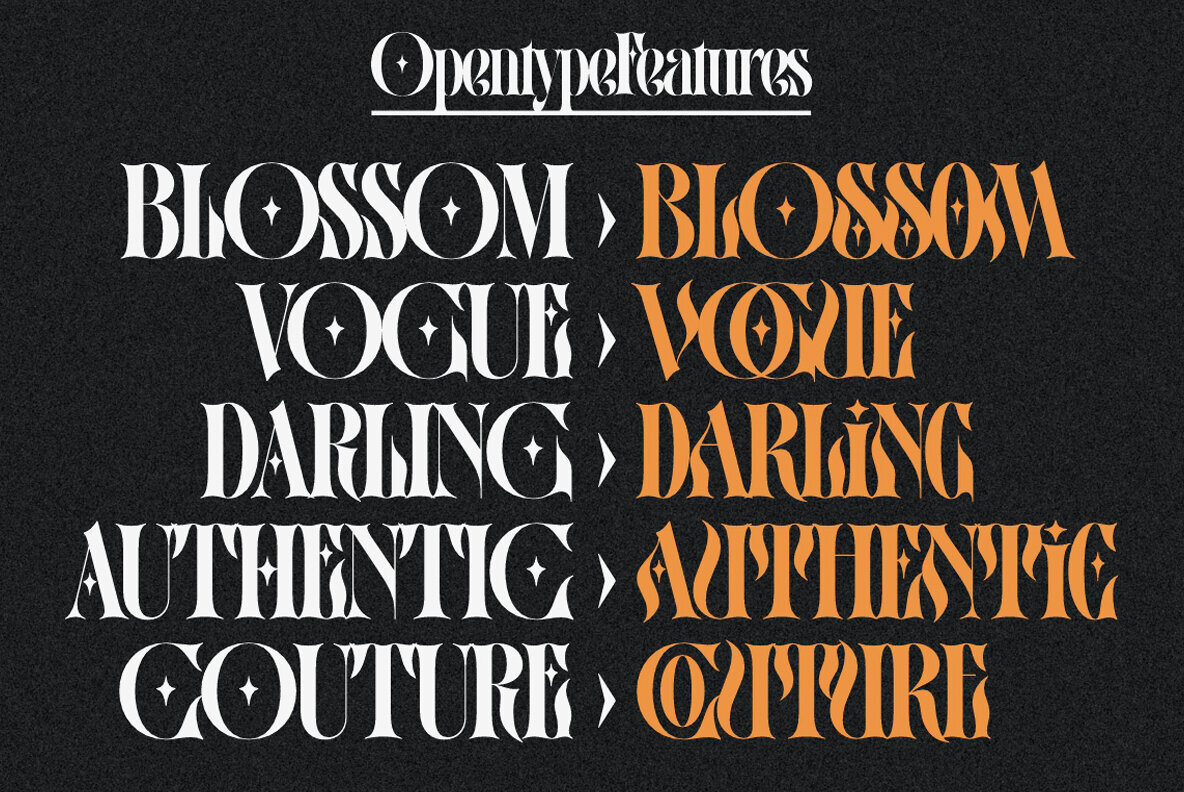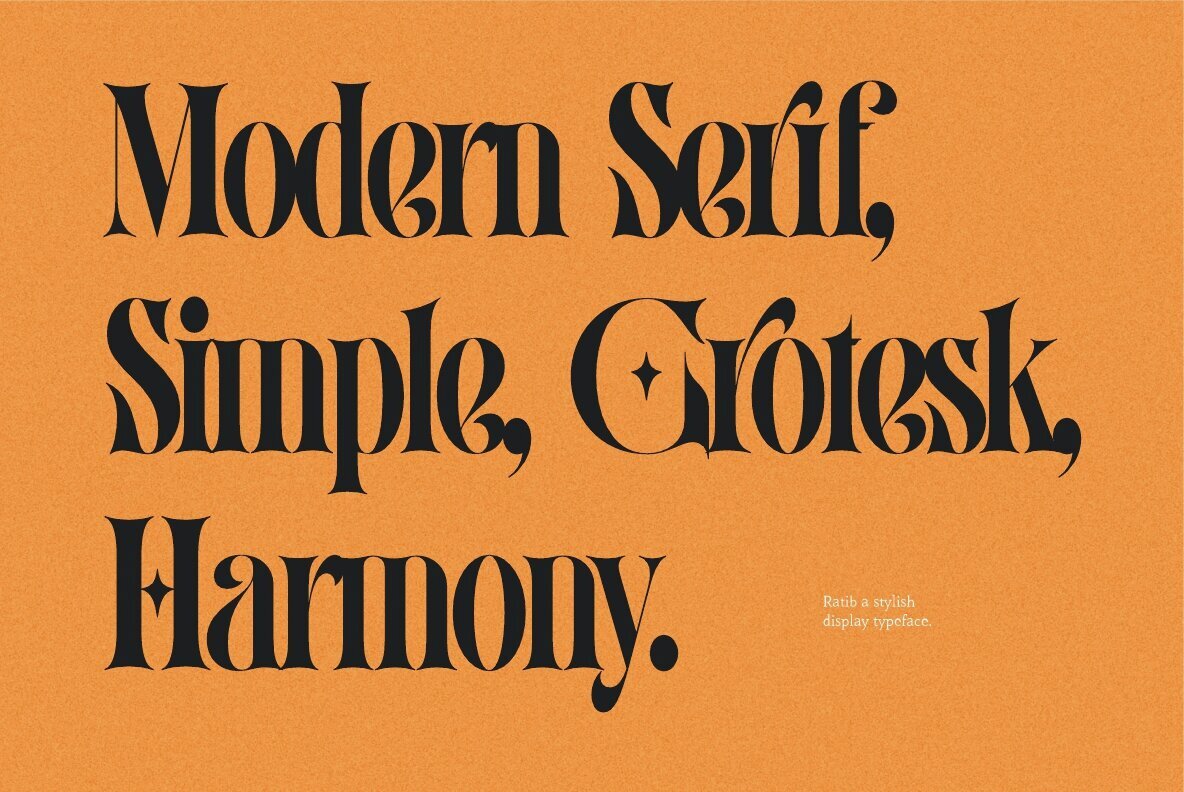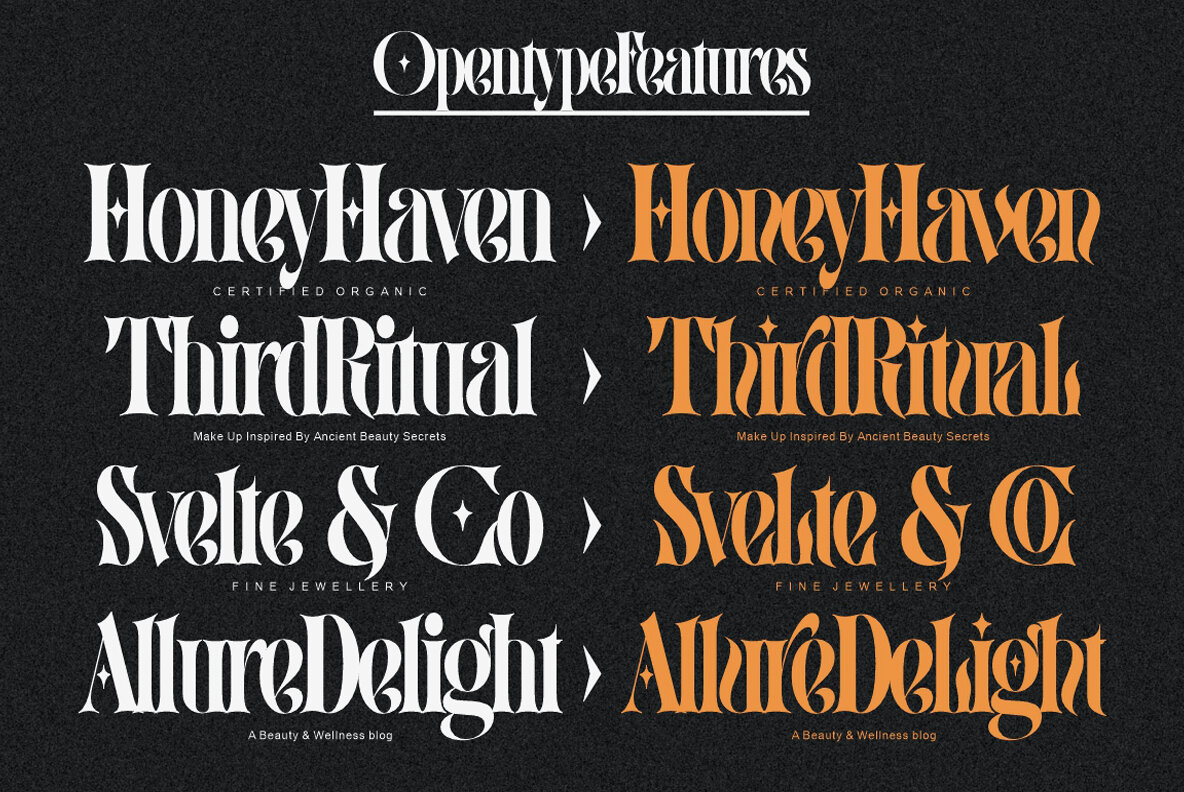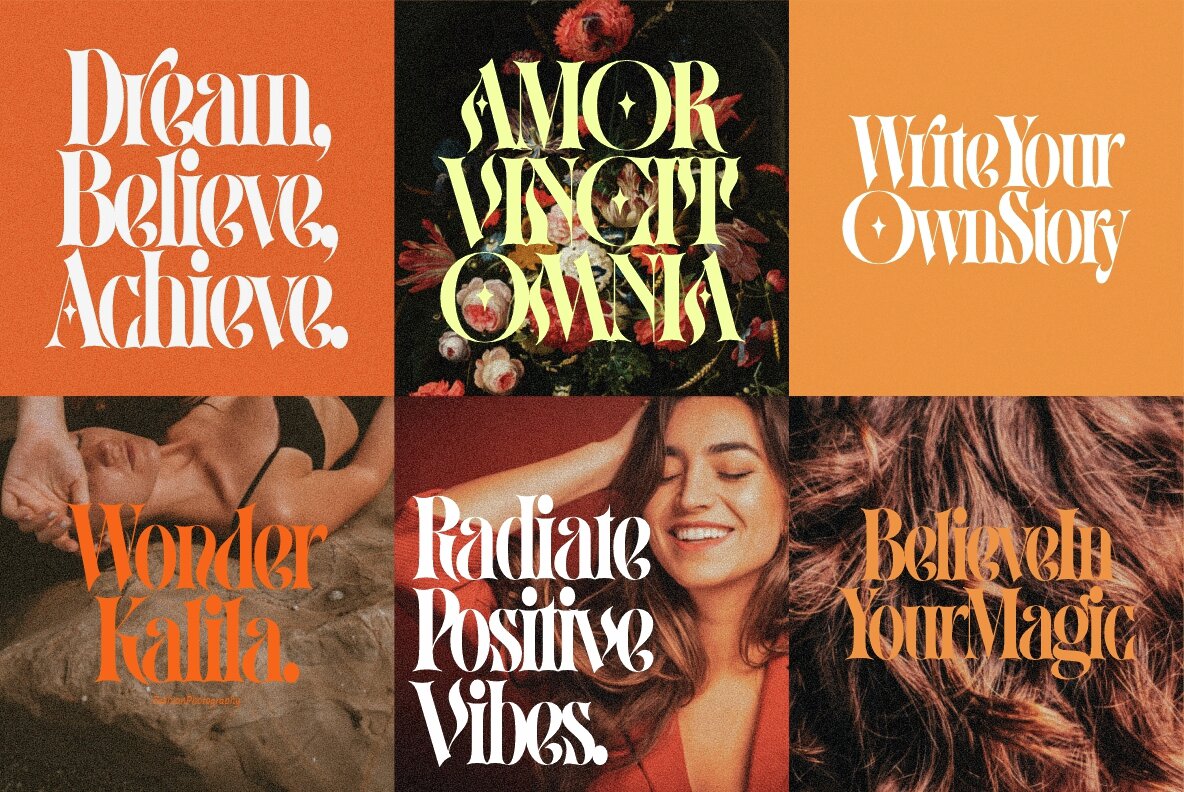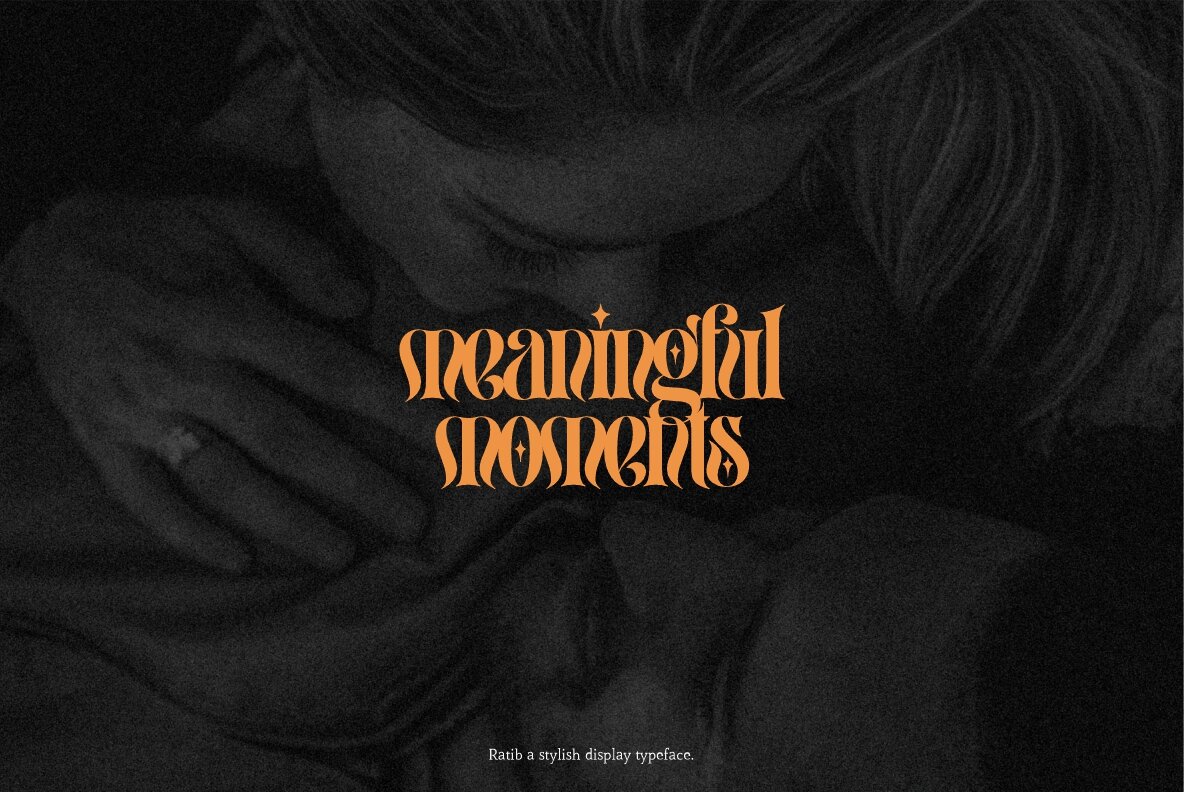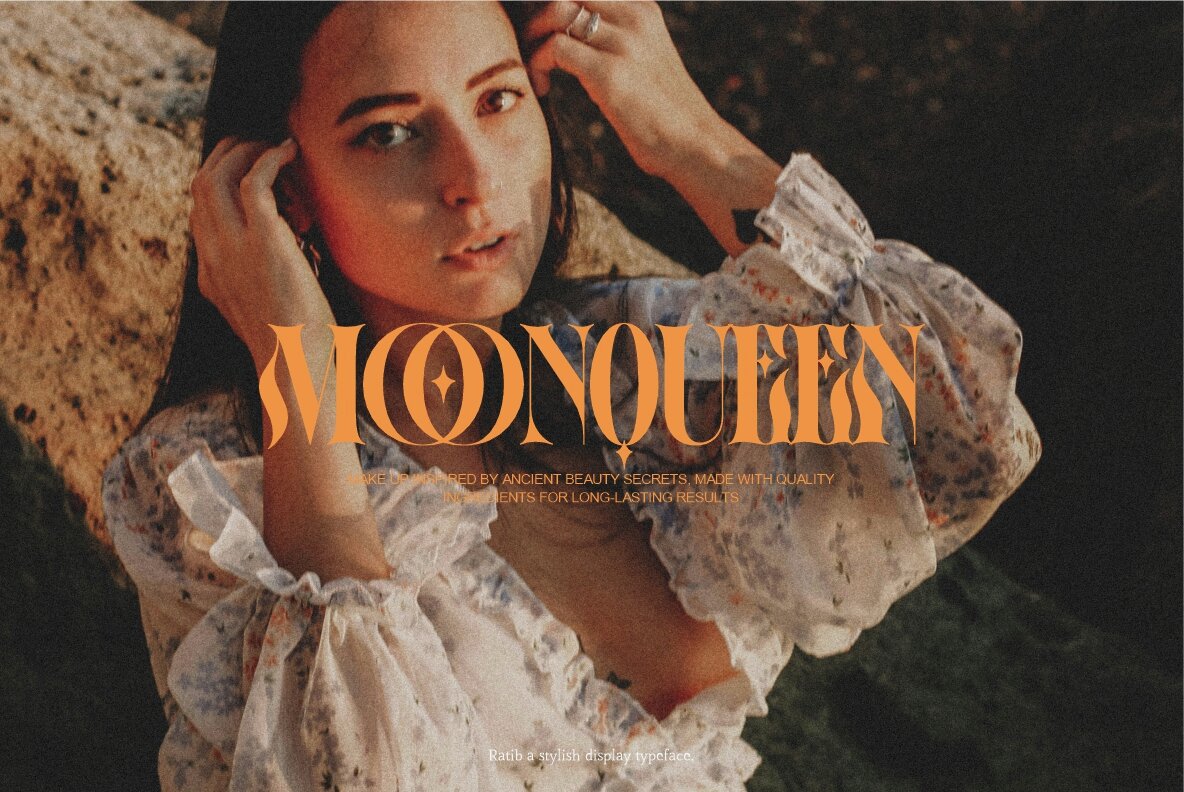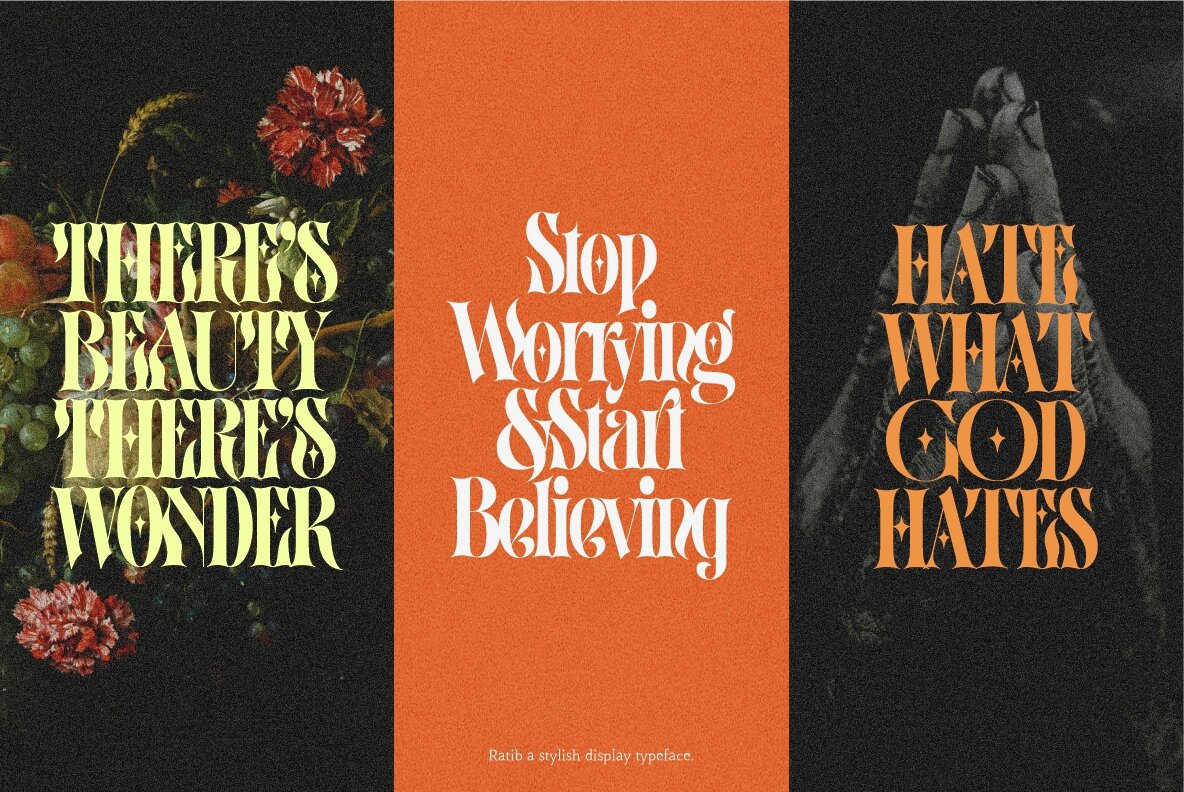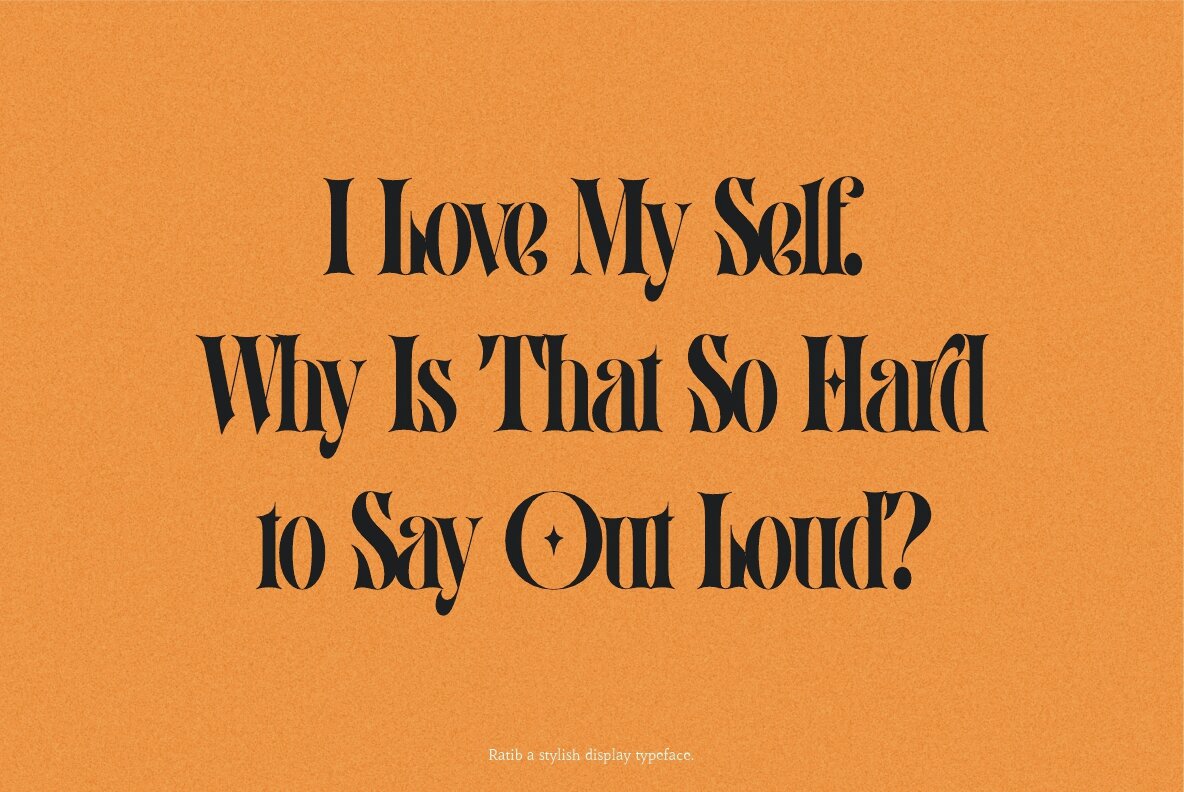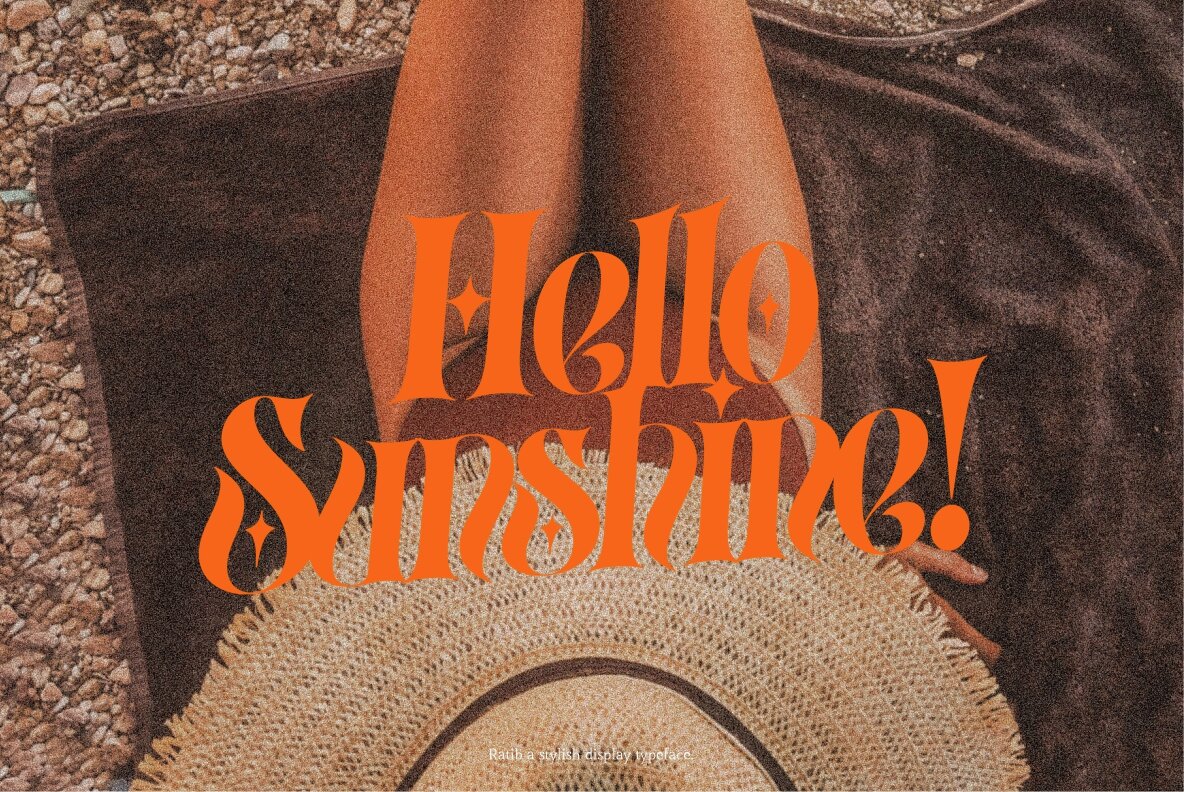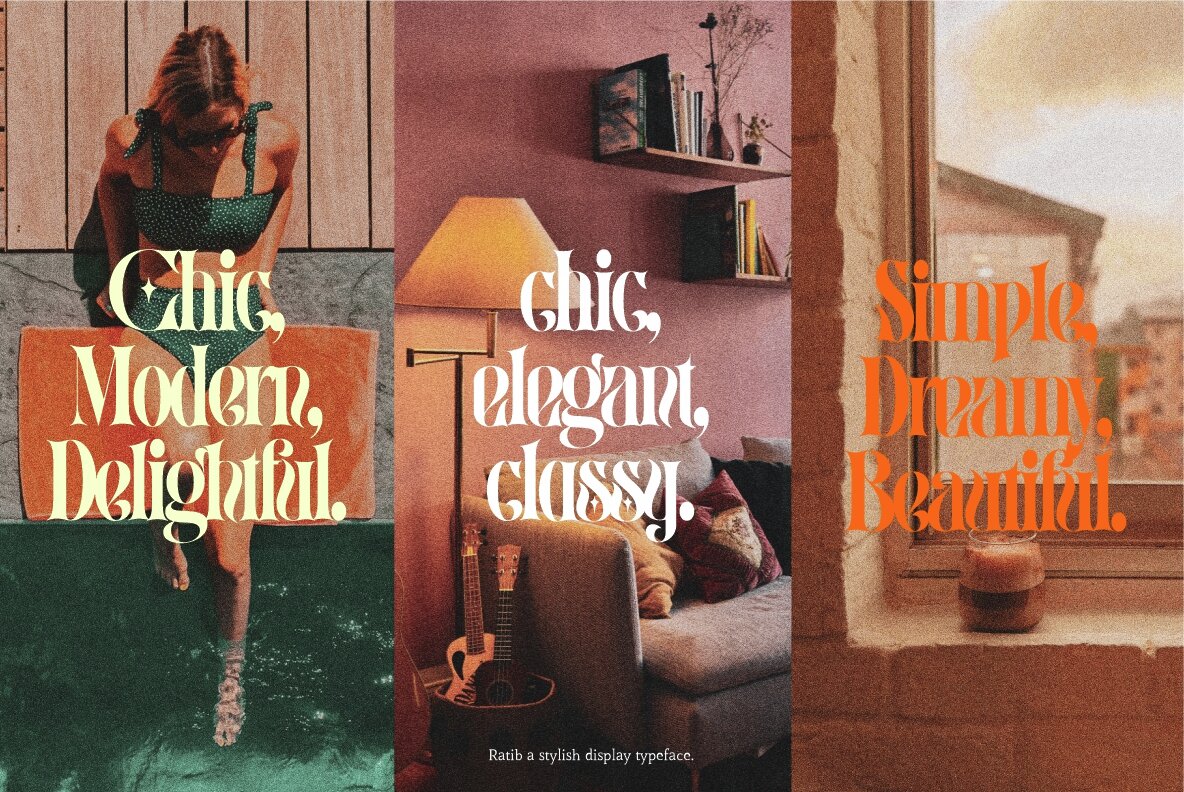
Ratib Font
Ratib Regular
Introducing Ratib – Modern Serif Font is a fantastic choice for you looking for a bold, stylish, and versatile vintage serif family with alternates and awesome ligatures that you can combine to get curves and beautiful shapes easily just in seconds. With its clean lines, sharp serifs, and strong appearance, Ratib display font is perfect for many different uses. Whether it’s a fancy retro-inspired logo, or engaging bold header text. Ratib its comes with alternate characters and awesome ligatures, giving you plenty of options to play with and customize your text. Its flexibility and range of styles make it suitable for both modern and vintage designs. FEATURES: